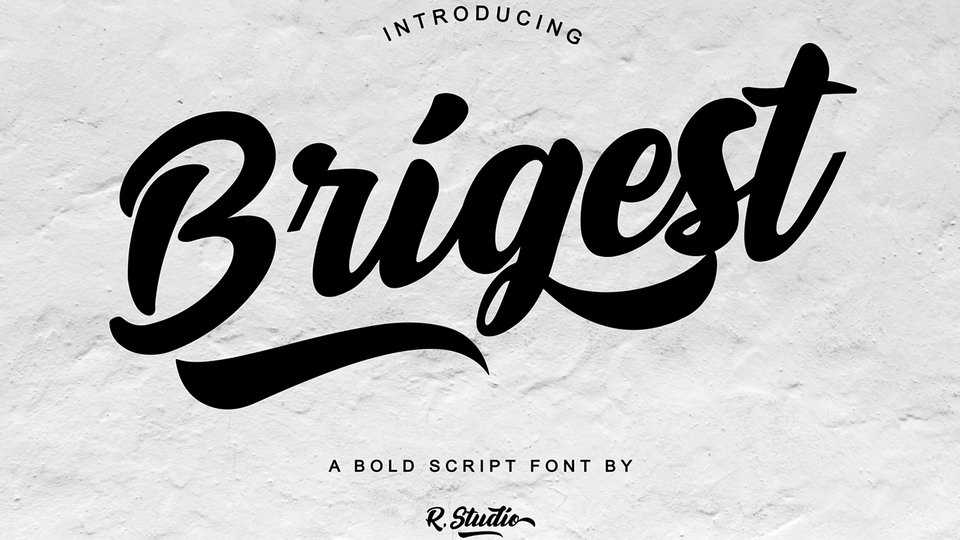
Download Brigest font, a script typeface with bold and strong natural movements which will add an amazing look to your designs. Perfect for branding projects, logos, social media posts, advertisements, product packaging and more.
Designer: R Studio